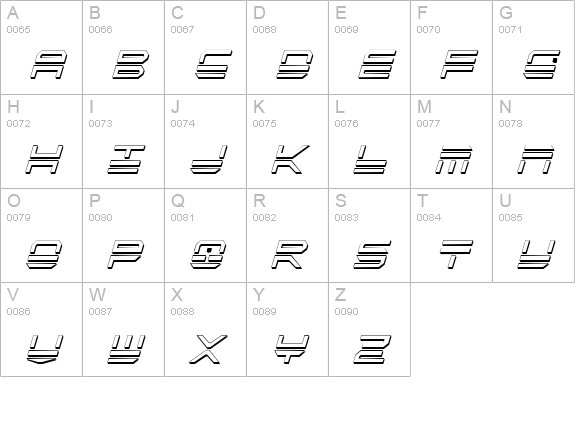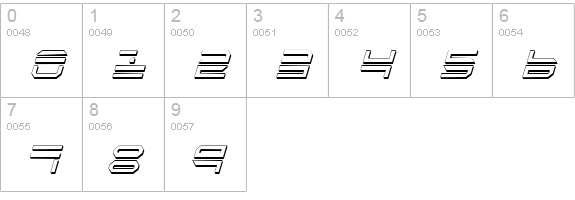
QuickStrike Shadow ItalCon is a stunningly bold and eye-catching font that exudes confidence and strength. With its sharp angles and sleek curves, this font commands attention and makes a powerful statement. Its unique shadow effect adds depth and dimension, giving your designs a three-dimensional look that is sure to captivate viewers. This versatile font is perfect for a wide range of projects, from logos and branding to headlines and posters. Its italicized style adds a touch of elegance and sophistication, making it ideal for high-end fashion, luxury brands, and upscale events. What makes QuickStrike Shadow ItalCon even more appealing is that it is completely free. Yes, you read that right - this exceptional font is freely available to download at FontsMarket.com. Whether you are a professional designer or a hobbyist looking to add some flair to your creations, you can enjoy the benefits of this remarkable font without any cost. So why wait? Visit FontsMarket.com today and download QuickStrike Shadow ItalCon for free. Unleash your creativity and make a bold statement with this powerful font.